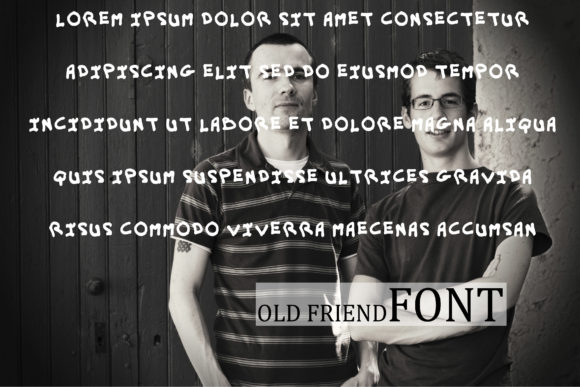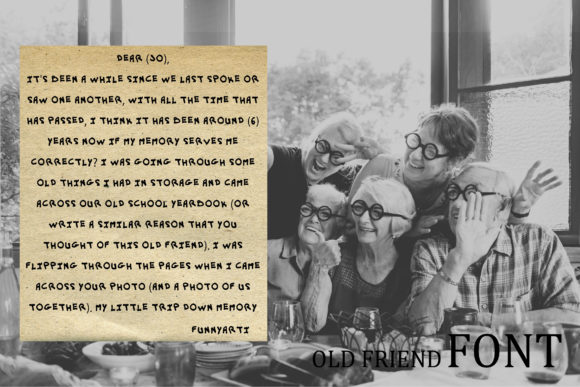
Old Friend Font
About Old Friend Font
Old Friend is a simple, quirky and neat handwritten font. Its informal style and casual vibe will make this font a go-to choice for each of the creations that require a relaxed touch.